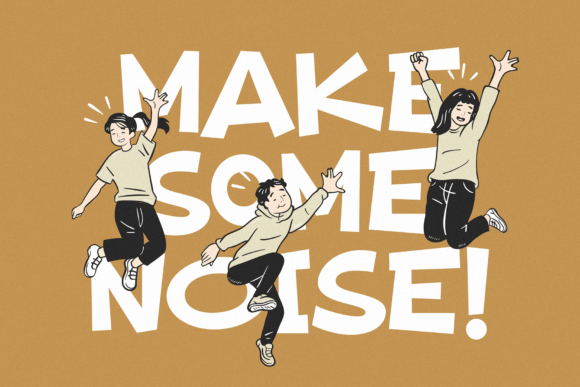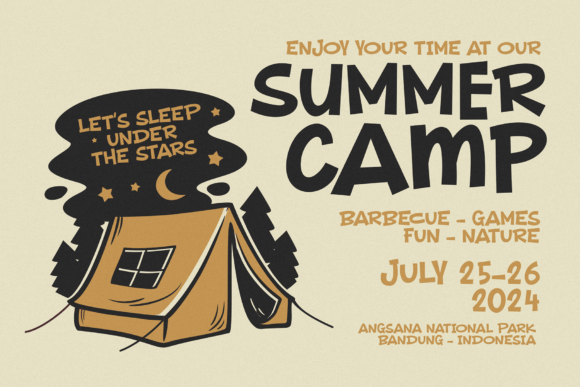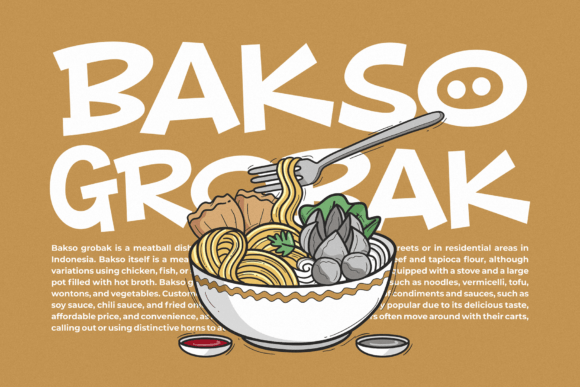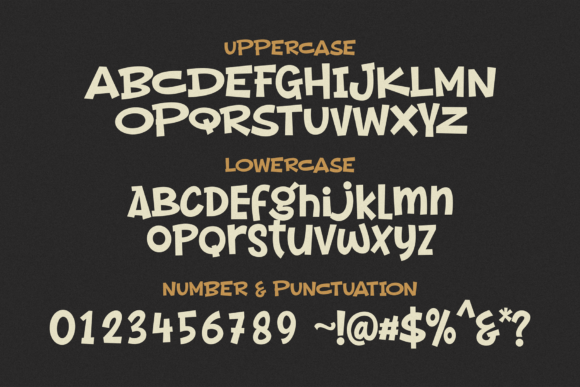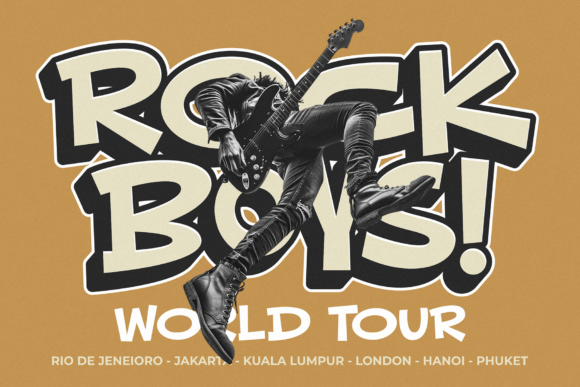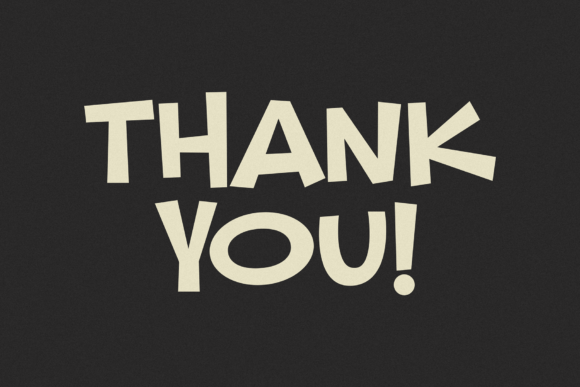
Introducing Grow Boys Font: The Playful Display Font for Unique Designs
In the world of typography, fonts play a crucial role in making your designs stand out. If you’re looking for a font that brings a playful and distinctive charm to your projects, look no further than Grow Boys Font. This not-so-ordinary display font is perfect for designers and crafters who want to add a unique and engaging touch to their work.
What is Grow Boys Font?
Grow Boys Font is a quirky and unconventional display font designed to make your text stand out. Its playful and distinctive style is perfect for projects that need a bold and eye-catching touch. Whether you’re working on a branding project, a poster, or a social media graphic, Grow Boys Font is sure to grab attention.
Key Features of Grow Boys Font
- Unique and Quirky Style: Grow Boys Font boasts a one-of-a-kind design that’s sure to make your text stand out from the crowd.
- Playful Charm: This font brings a playful and engaging touch to your designs, perfect for projects that need a bit of personality.
- Display Font: Grow Boys Font is designed specifically as a display font, making it perfect for headlines, titles, and short text snippets.
Who is Grow Boys Font for?
Grow Boys Font is perfect for designers, crafters, and DIY enthusiasts who want to add a unique touch to their projects. This font is ideal for:
- Graphic Designers: If you’re working on branding projects, posters, or social media graphics, Grow Boys Font is a great addition to your font library.
- Crafters: If you’re creating handmade cards, scrapbooking, or other paper crafts, Grow Boys Font can add a playful touch to your projects.
- DIY Enthusiasts: If you’re working on DIY projects, such as creating signs, banners, or other decorative items, Grow Boys Font can help you add a personal touch.
Here are some tips for using Grow Boys Font:
- Use it as a Headline Font: Grow Boys Font is perfect for headlines and titles. Use it to grab attention and add a playful touch to your designs.
- Experiment with Colors: Grow Boys Font looks great in bold, bright colors. Experiment with different colors to add an extra pop to your designs.
- Mix and Match: Grow Boys Font pairs well with other fonts. Try mixing and matching it with other fonts to create a unique look.
If you’re looking for a font that brings a playful and distinctive charm to your designs, look no further than Grow Boys Font. This not-so-ordinary display font is perfect for designers and crafters who want to add a unique and engaging touch to their projects. With its quirky and unconventional style, Grow Boys Font is sure to make your text stand out.